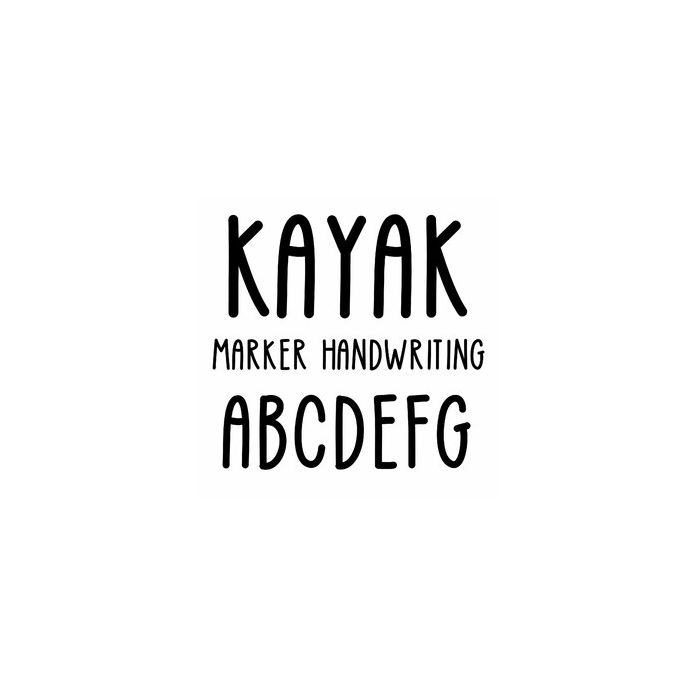
Kayak marker handwriting font
Cute marker handwriting font for summer vacation crafts, cards, monograms, signs, planners, and personalization projects.